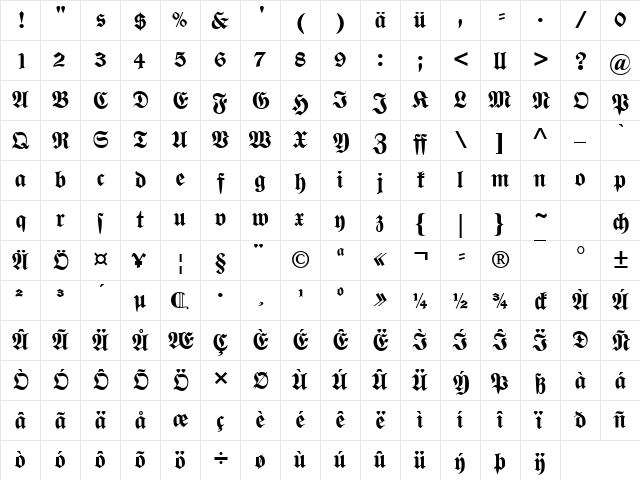
Wittenberger Fraktur MT Dfr Bold
Design Context for Wittenberger Fraktur MT Dfr Typeface
Wittenberger Fraktur MT Dfr channels the dramatic heritage of Fraktur and Gothic scripts, bringing a sense of historical gravitas to any design. The heavy weight commands attention and anchors typographic hierarchies.
A natural fit for music packaging, gothic editorial design, and any project that needs historical weight.
Font Pairing: Pair with a clean neutral sans-serif for body copy to let Wittenberger Fraktur MT Dfr's character lead without overwhelming the composition.
Pro Tip: Reserve Wittenberger Fraktur MT Dfr for display and logo use — pair it with a clean sans-serif for body copy to prevent the composition from feeling oppressive.